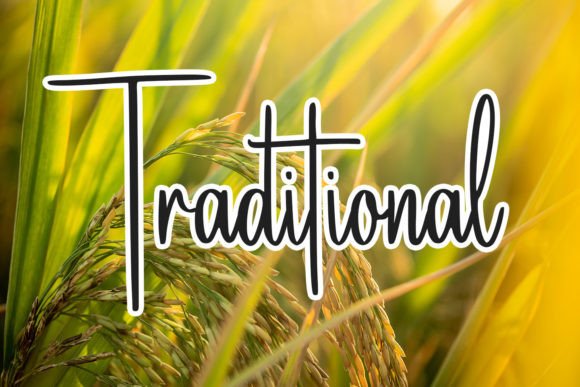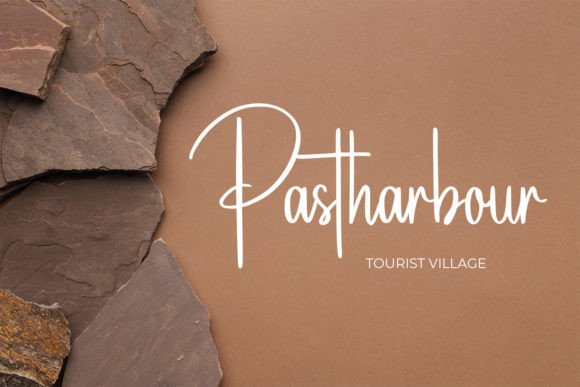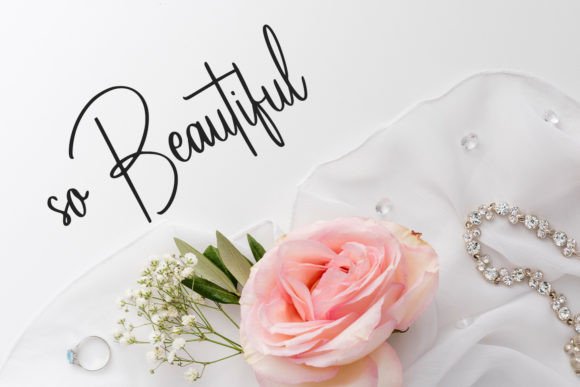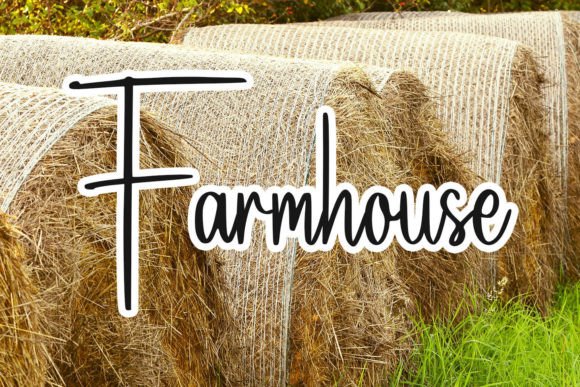
Bombastis Font: Elevate Your Designs with a Fresh Handwriting Style
In the world of typography, a fresh and natural handwriting font can make all the difference in creating stunning designs. Introducing Bombastis Font, a modern and elegant script font that brings a personal touch to your creative projects. With its unique and fluid strokes, Bombastis is perfect for designers and crafters looking to add a touch of sophistication and whimsy to their work.
What is Bombastis Font?
Bombastis is a fresh handwriting font with a very natural touch. Its casual and effortless style makes it ideal for a wide range of design applications, from branding and packaging to quotes, logos, and social media graphics. This versatile font is designed to help you create visually appealing and engaging content that stands out from the crowd.
Key Features of Bombastis Font
- Natural and Fluid Strokes: Bombastis features smooth and connected strokes that give it a natural and hand-written feel.
- Highly Legible: The font is designed to be easy to read, making it perfect for body text, headings, and titles.
Use Cases for Bombastis Font
Bombastis is a versatile font that can be used in a variety of design projects, including:
- Branding: Create a unique and memorable brand identity with Bombastis.
- Packaging: Add a personal touch to your product packaging with this elegant font.
- Quotes and Typography: Use Bombastis to create inspiring and visually appealing quotes and typography.
- Logos and Icons: Design custom logos and icons with Bombastis.
- T-Shirt and Merchandise Designs: Create stunning apparel and merchandise designs with this fresh font.
- Tote Bag Designs: Add a touch of elegance to your tote bag designs with Bombastis.
- Cards and Invitations: Use Bombastis to create beautiful and unique cards and invitations.
- Banners and Posters: Create eye-catching banners and posters with this versatile font.
- Social Media Graphics: Elevate your social media graphics with Bombastis.
Why Choose Bombastis Font?
With so many fonts available, why choose Bombastis? Here are a few reasons:
- Unique and Fresh Design: Bombastis offers a unique and fresh design that will set your designs apart.
- High-Quality Design: Bombastis is designed with high-quality and precision, ensuring a crisp and clear appearance.
In conclusion, Bombastis Font is a versatile and elegant script font that is perfect for designers and crafters looking to add a personal touch to their designs. With its natural and fluid strokes, high legibility, and multilingual support, Bombastis is ideal for a wide range of design applications. Whether you’re creating branding materials, packaging, quotes, logos, or social media graphics, Bombastis is sure to elevate your designs and make them stand out from the crowd.